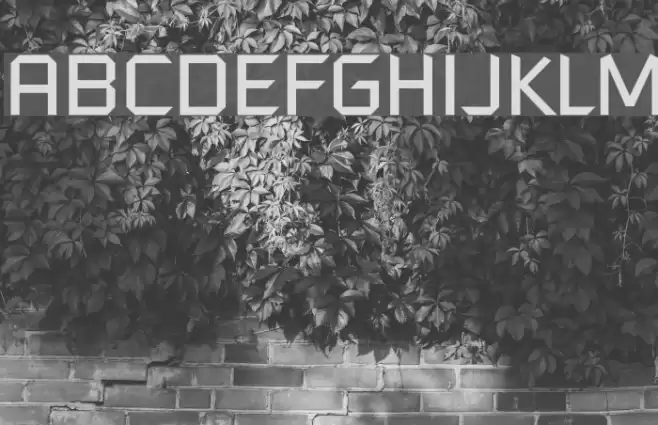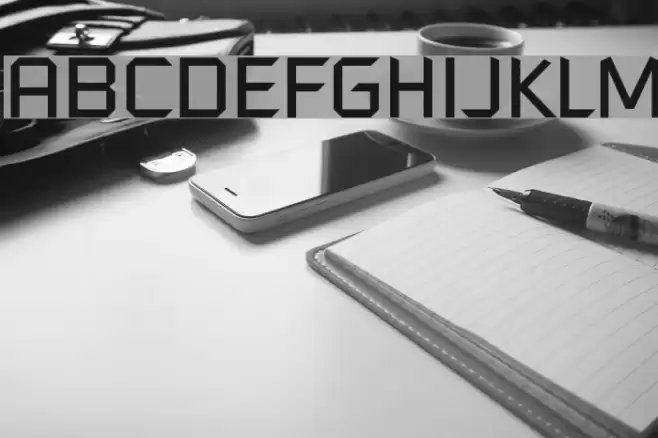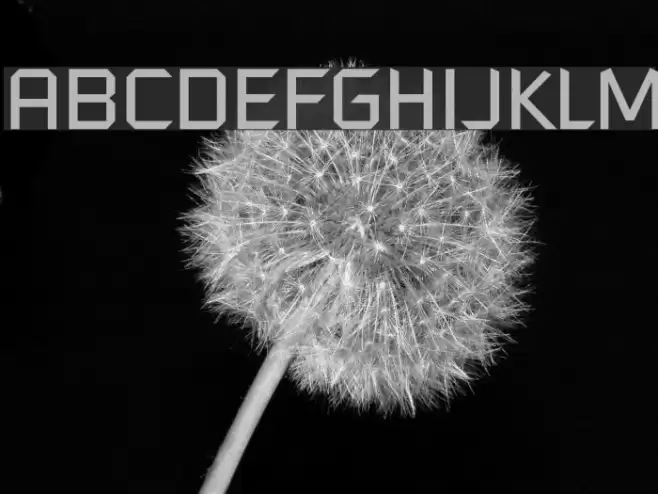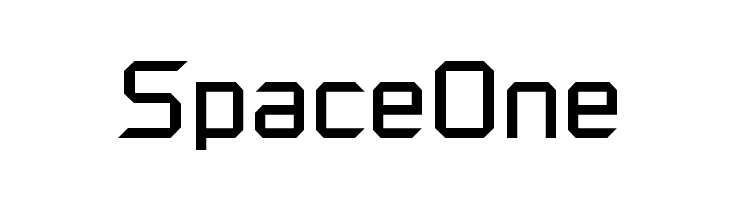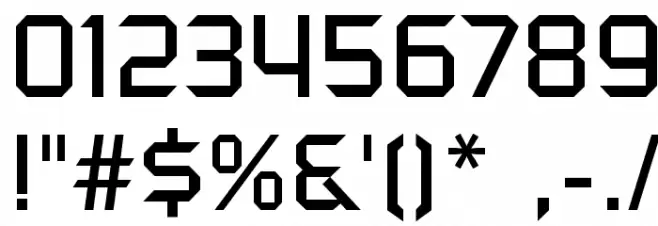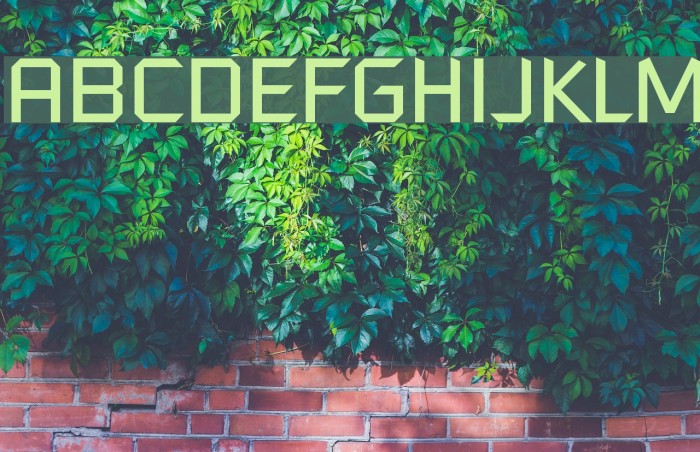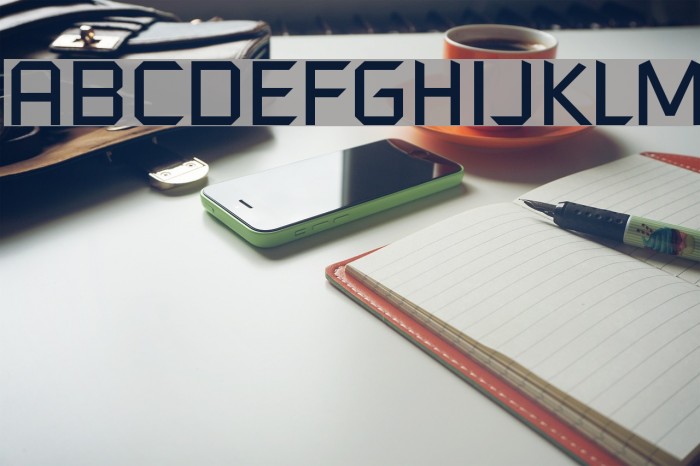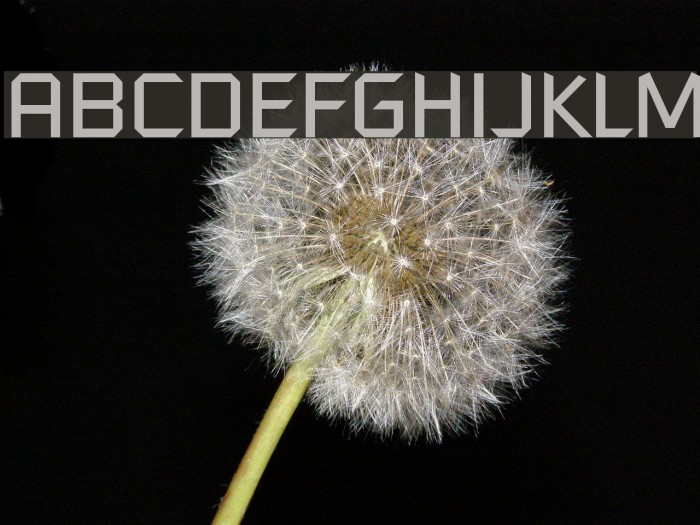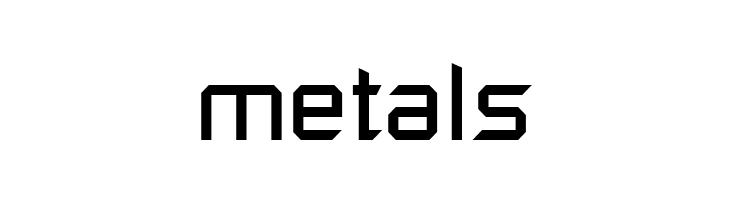
SpaceOne Font
SpaceOne Description
This font features a geometric and futuristic design, characterized by angular lines and a bold presence. The uppercase letters are uniform in height, with sharp edges and a consistent stroke width that gives a modern and technical feel. The lowercase letters maintain the angular theme, with some characters like 'j' and 'y' extending below the baseline, adding a dynamic touch. The numerals are distinct and easily readable, following the same geometric style. Special characters are well-integrated, maintaining the overall aesthetic. This font is ideal for projects that require a modern, tech-savvy look, such as digital interfaces, gaming titles, or sci-fi themed designs.
A geometric, futuristic font with angular lines and a bold, modern appearance.
- Proposed Projects: Ideal for digital interfaces, gaming titles, sci-fi themed designs, and technology branding.
- Category: Modern
- Overall Style: Futuristic, Geometric
- Use Case: Headlines, Logos, Digital Interfaces